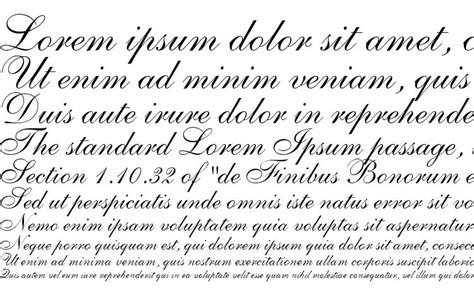
Script typefaces are based upon the varied and often fluid stroke created by handwriting, pretty much like the cursive fonts just typically more elegant. Licensed for personal and commercial use. Browse by alphabetical listing, by style, by author or by popularity. 1001 free fonts offers a huge selection of free fonts. Need to have a font of 12 on line field re: Ld shelly script by for windows. It features decorative characters and a dancing baseline! Free monospaced font with programming ligatures. Free·fonts kostenlose schriften suchen und downloaden. Search shelly script (2) | page 1. Shelley script complete family pack. Please enter your email address receive a free font daily from fonts101.com in your email! They are organized into highly regular formal types similar to cursive writing and looser, more casual scripts.